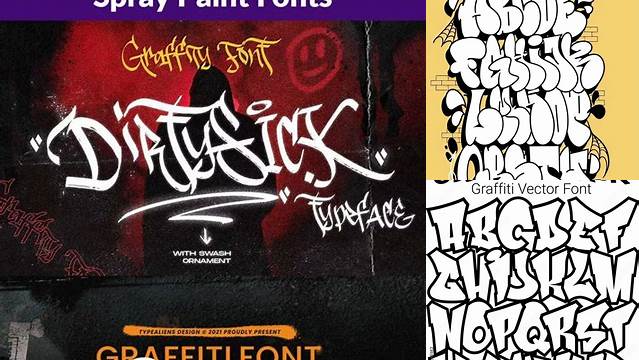
Free Graffiti Fonts For Commercial Use
Are you looking to infuse your designs with urban flair? Guys, you've landed in the perfect spot! Graffiti fonts are an awesome way to add an edgy, street-art vibe to any project. Whether you're crafting a logo, designing a poster, or revamping your website, a killer graffiti font can make all the difference. But let's be real, finding high-quality fonts that are free for commercial use can feel like searching for a needle in a haystack. That's where I come in! I've scoured the internet to bring you a curated list of the best free commercial graffiti fonts that will help you make your creations pop. So, buckle up, let's dive into the world of free graffiti fonts and discover how you can unleash your inner artist without breaking the bank.
What Makes a Great Graffiti Font?
Before we jump into the font list, let's chat about what actually makes a graffiti font great. It's not just about scribbled letters; there's a whole art and science behind it. A standout graffiti font should capture the raw energy and authenticity of street art while remaining legible and versatile for various design applications. Think about it – you want a font that screams creativity and rebellion but doesn't make your audience squint to decipher the message.
Key elements of a top-notch graffiti font include:
- Authenticity: The font should genuinely reflect the look and feel of real-world graffiti. This often means incorporating elements like drips, splatters, uneven lines, and a hand-drawn aesthetic. It's gotta feel like it was sprayed on a wall, you know?
- Readability: As much as we love the wild and expressive nature of graffiti, legibility is crucial, especially for body text or smaller applications. The best fonts strike a balance between artistic flair and clarity.
- Versatility: A great graffiti font shouldn't be a one-trick pony. It should work well in different contexts, from bold headlines to subtle background elements. Think about how the font will look in both digital and print formats.
- Character: A killer graffiti font has personality! It should evoke a specific mood or style, whether it's aggressive and rebellious or playful and funky. This character is what will make your design stand out.
- Completeness: Ideally, a font should include a full character set (uppercase, lowercase, numbers, and punctuation) to give you maximum flexibility in your designs. This ensures you can convey any message without limitations.
Top Free Commercial Graffiti Fonts
Okay, guys, let's get to the good stuff! Here's a list of some of the best free graffiti fonts that you can use for your commercial projects. These fonts are not only free but also pack a serious punch in terms of style and usability. I've tried to include a variety of styles to suit different needs and preferences, so there's something for everyone. Let’s check them out:
1. Urban Decay
Urban Decay is a bold and gritty font that perfectly captures the raw energy of street art. It’s got that authentic, spray-painted look with rough edges and a slightly uneven baseline. This font is fantastic for headlines, posters, and anything that needs a strong, urban vibe. It’s like the quintessential graffiti font – the one that instantly makes you think of tags on a subway car. What makes Urban Decay stand out is its unapologetic attitude. It doesn't try to be polished or refined; it embraces the chaos and imperfections of street art. This makes it incredibly effective for projects that aim to convey a sense of rebellion, authenticity, or underground culture. Imagine using it for a music festival poster, a skateboard brand logo, or even a video game title – it just screams cool and edgy. Plus, it's surprisingly versatile. While it's definitely a statement font, you can tone it down by pairing it with a clean, sans-serif font for body text. This creates a nice contrast that keeps your design balanced and readable. Urban Decay includes uppercase letters, numbers, and basic punctuation, so you've got enough to work with for most projects. If you're looking for a font that truly embodies the spirit of graffiti, Urban Decay is a must-try.
2. Ruthless Brush
Ruthless Brush is another amazing free font that brings a hand-drawn, marker-style aesthetic to your designs. It's less about the spray-painted look and more about the raw strokes of a graffiti artist’s marker. This font has a super expressive quality, with thick, bold lines and a slight slant that gives it a sense of movement and urgency. It’s perfect for projects that need a personal, hand-crafted feel. Think about using Ruthless Brush for a band poster, a t-shirt design, or even a comic book cover. The font’s bold and dynamic character makes it incredibly eye-catching, and the hand-drawn style adds a touch of authenticity that a lot of other fonts just can't match. What's really cool about Ruthless Brush is how versatile it is. It works great for both headlines and shorter blocks of text, and it pairs well with a variety of other fonts. You could use it alongside a clean, sans-serif font for a modern look, or combine it with a more traditional serif font for a vintage vibe. The possibilities are endless! Plus, Ruthless Brush includes a full set of uppercase and lowercase letters, numbers, and punctuation, so you've got everything you need to create awesome designs. If you want a font that’s bold, expressive, and full of character, Ruthless Brush is definitely worth checking out.
3. Blow Brush
Blow Brush is a playful and energetic font that’s got a unique charm. It’s like a graffiti font that’s been given a shot of fun. The letters are thick and rounded, with a slightly bouncy baseline that gives the font a whimsical feel. This makes it a great choice for projects that need a touch of lightheartedness and creativity. Imagine using Blow Brush for a children’s book cover, a party invitation, or even a quirky website design. The font’s playful character makes it incredibly approachable, and the bold shapes ensure that it stands out. What sets Blow Brush apart is its balance of boldness and friendliness. It’s definitely a statement font, but it doesn’t feel aggressive or intimidating. Instead, it’s inviting and fun, which makes it perfect for projects that want to connect with a younger audience or convey a sense of joy. Blow Brush includes uppercase letters, numbers, and a selection of punctuation marks, so you’ve got a good range of characters to work with. It pairs particularly well with other playful fonts or with simple, clean fonts that let its personality shine. If you're looking for a graffiti font that’s got a smile on its face, Blow Brush is an excellent choice.
4. Hacked
Hacked is a cool and futuristic font that blends graffiti elements with a techy aesthetic. It’s got a slightly distorted, glitchy look that gives it a unique and edgy vibe. This font is perfect for projects that want to convey a sense of innovation, digital culture, or even cyberpunk themes. Think about using Hacked for a video game logo, a tech blog header, or a science fiction book cover. The font’s unique style makes it incredibly memorable, and the futuristic elements add a touch of intrigue. What makes Hacked so effective is its ability to blend the raw energy of graffiti with the sleekness of technology. It’s like a digital tag – a message sprayed onto the virtual walls of the internet. This makes it a great choice for projects that want to appeal to a tech-savvy audience or convey a sense of cutting-edge style. Hacked includes uppercase letters, numbers, and basic punctuation, so you’ve got a solid foundation for your designs. It pairs well with other futuristic fonts or with minimalist fonts that let its unique character shine. If you’re looking for a graffiti font that’s got a digital twist, Hacked is definitely worth checking out.
5. The Battle Continuez
The Battle Continuez is a powerful and dynamic font that captures the intensity of a graffiti battle. It’s got a rough, aggressive look with sharp edges and bold strokes. This font is perfect for projects that need to convey a sense of strength, competition, or urban warfare. Imagine using The Battle Continuez for a sports team logo, a fighting game title, or a hardcore music album cover. The font’s bold and imposing character makes it incredibly attention-grabbing, and the aggressive style adds a touch of attitude. What sets The Battle Continuez apart is its sense of urgency and energy. It feels like the letters are in motion, battling for space on the page. This makes it a great choice for projects that want to make a strong statement or convey a sense of high stakes. The Battle Continuez includes uppercase letters, numbers, and a range of punctuation marks, so you’ve got plenty to work with. It pairs well with other bold fonts or with stark, minimalist designs that let its intensity take center stage. If you’re looking for a graffiti font that’s ready for action, The Battle Continuez is an excellent choice.
So there you have it, guys! A deep dive into the world of free commercial graffiti fonts. I hope this article has given you some inspiration and a solid starting point for your design projects. Remember, the right font can make all the difference in conveying your message and capturing your audience's attention. With the fonts and tips I’ve shared, you’re well-equipped to unleash your inner artist and create designs that are bold, expressive, and totally awesome. Now go out there and make some magic!